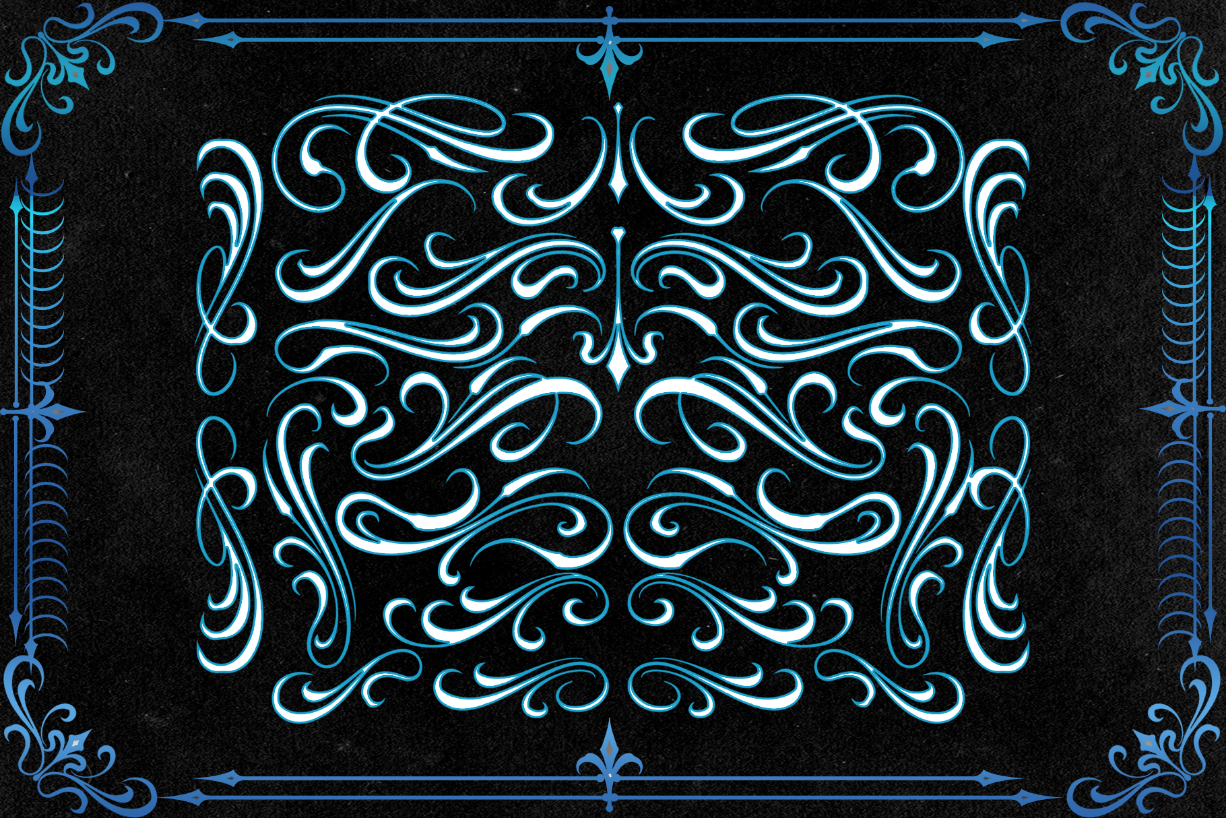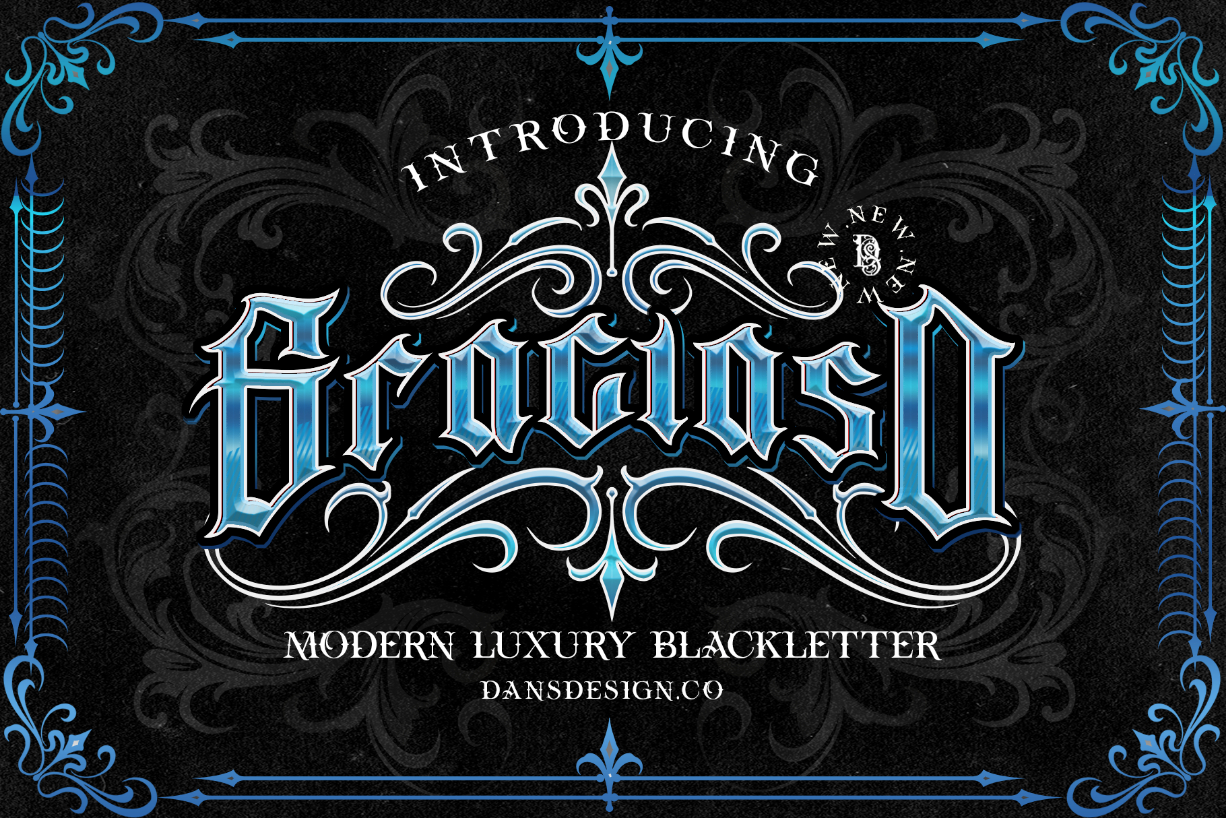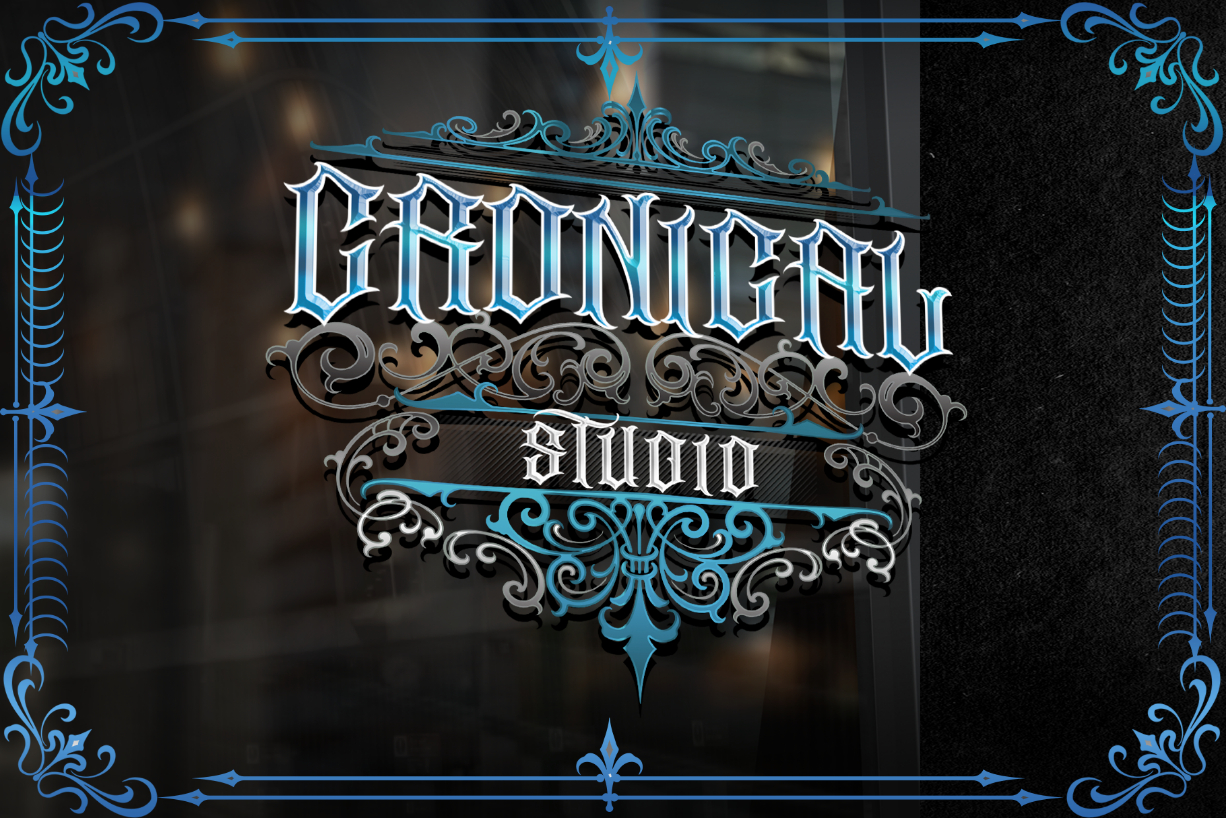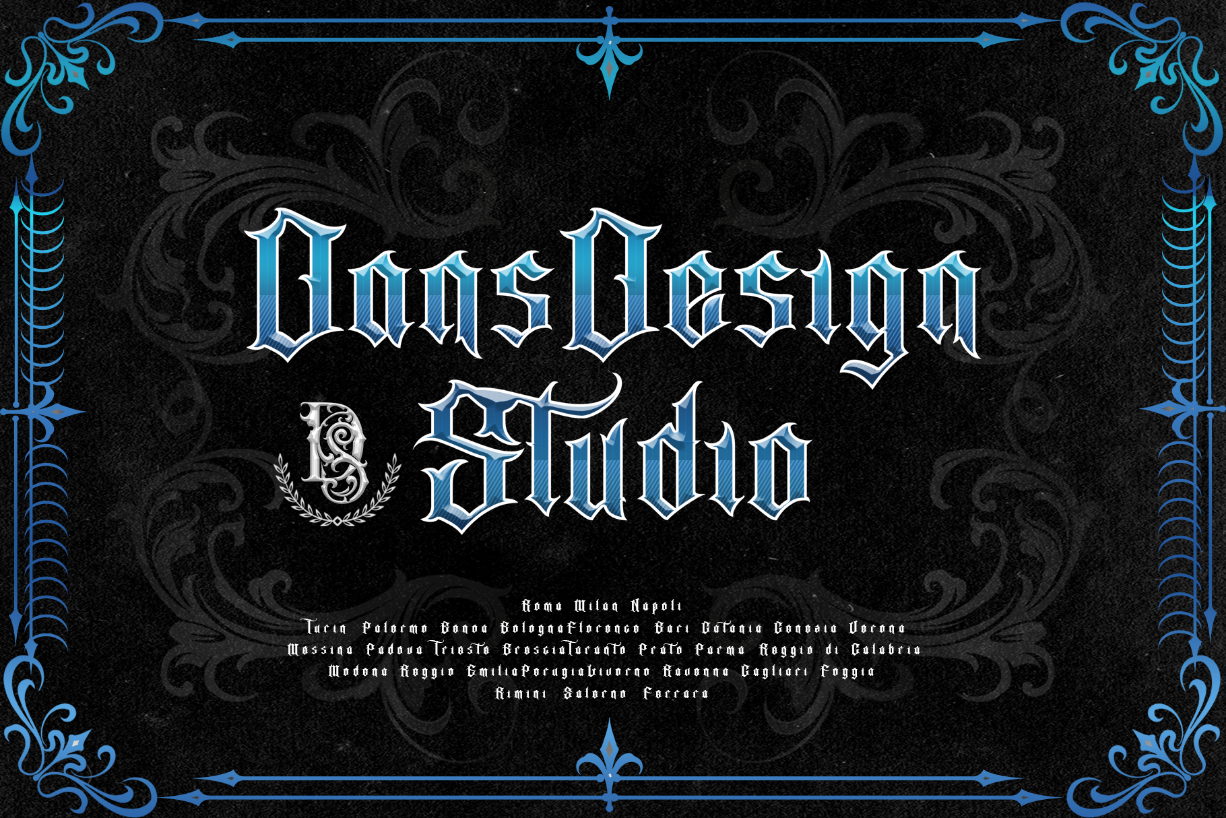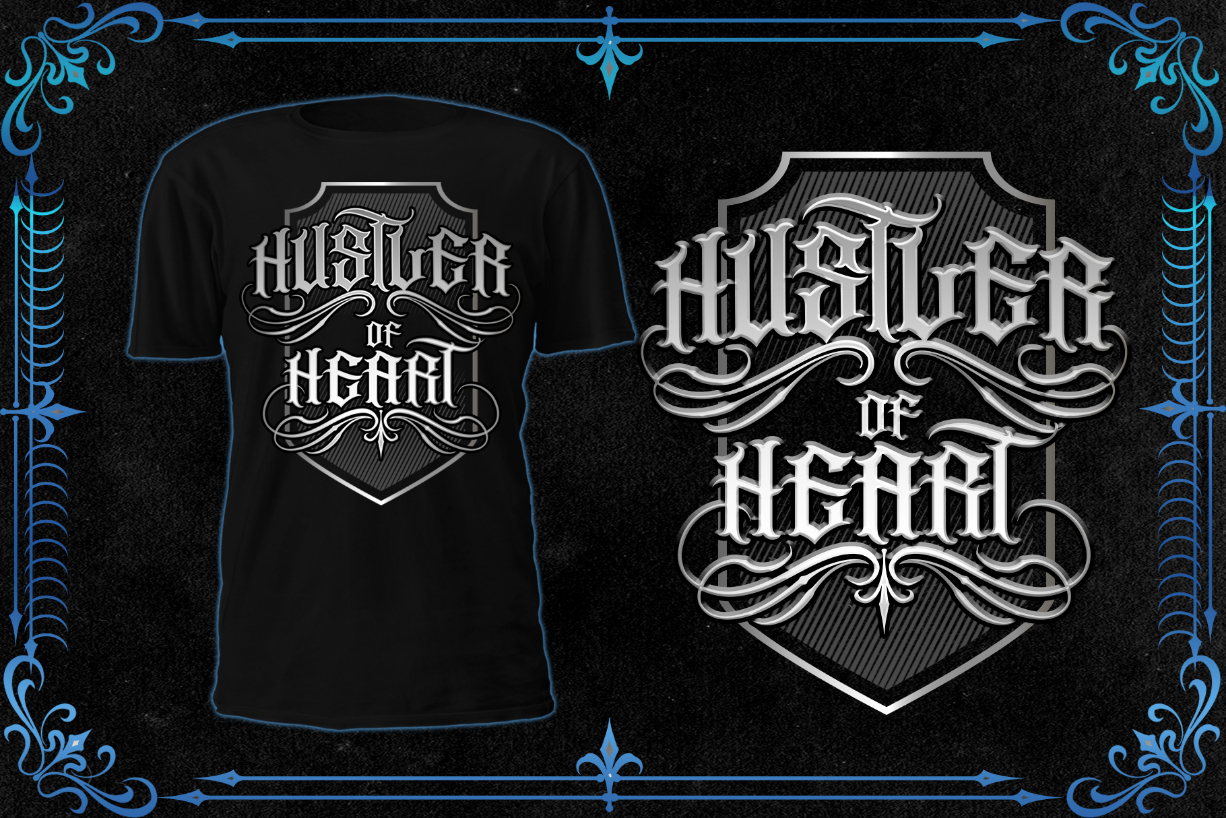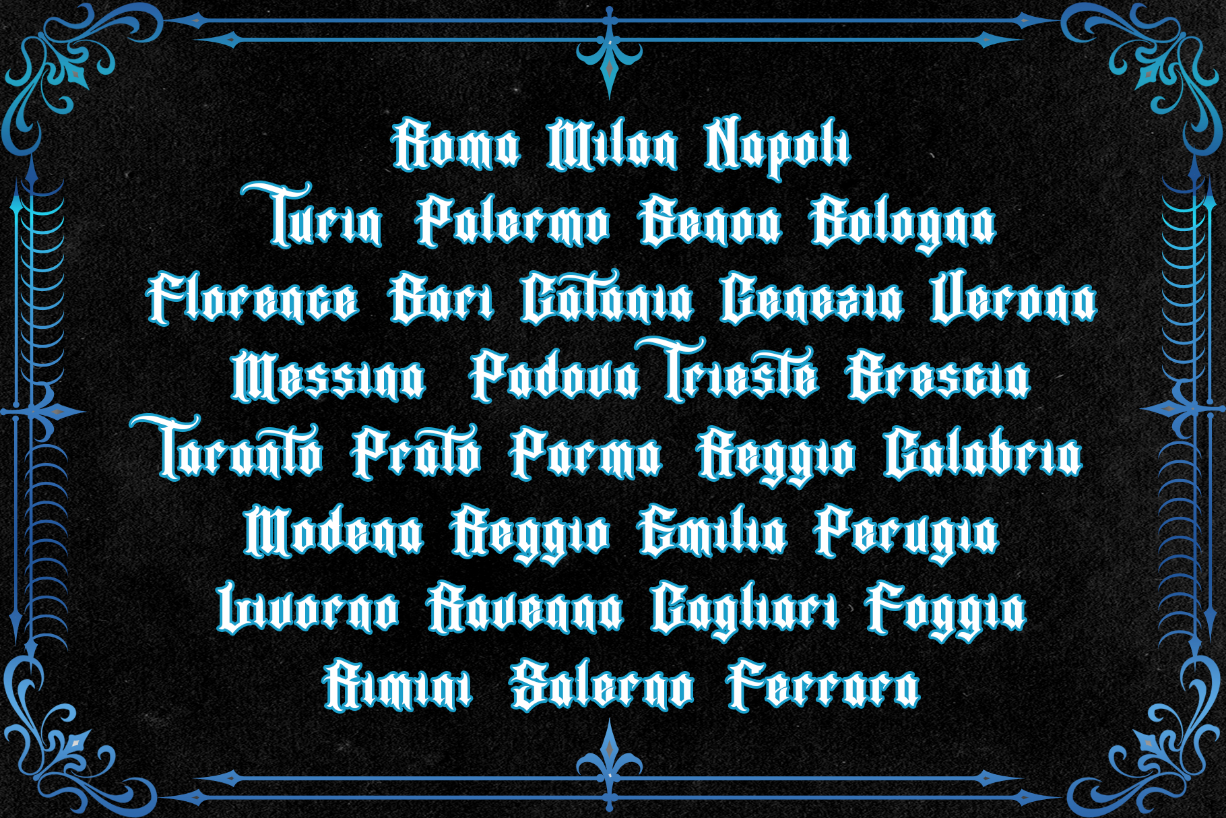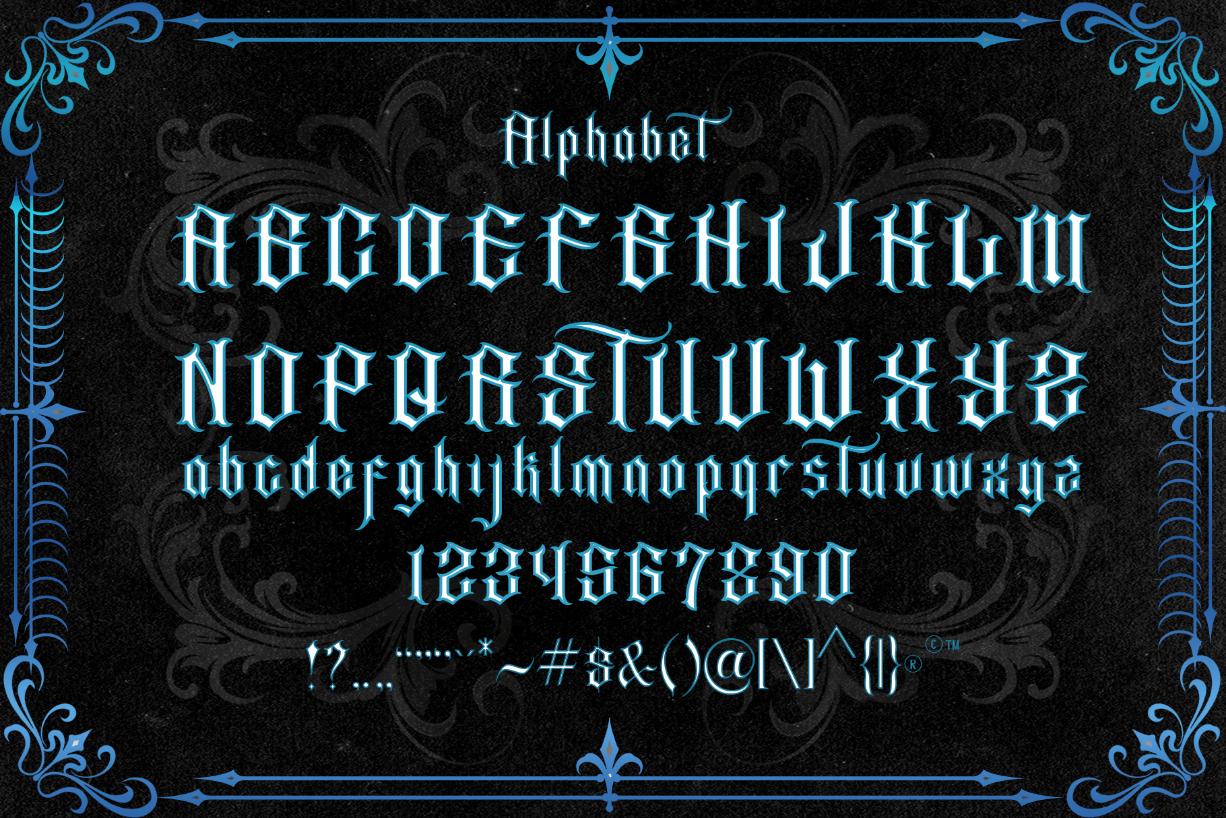
Graciaso Font
About Graciaso Font
Graciaso is a highly detailed and bold blackletter font. This font is imposing and features uniquely shaped letters, and as a result, it will easily match a wide range of creations that require a distinct touch.